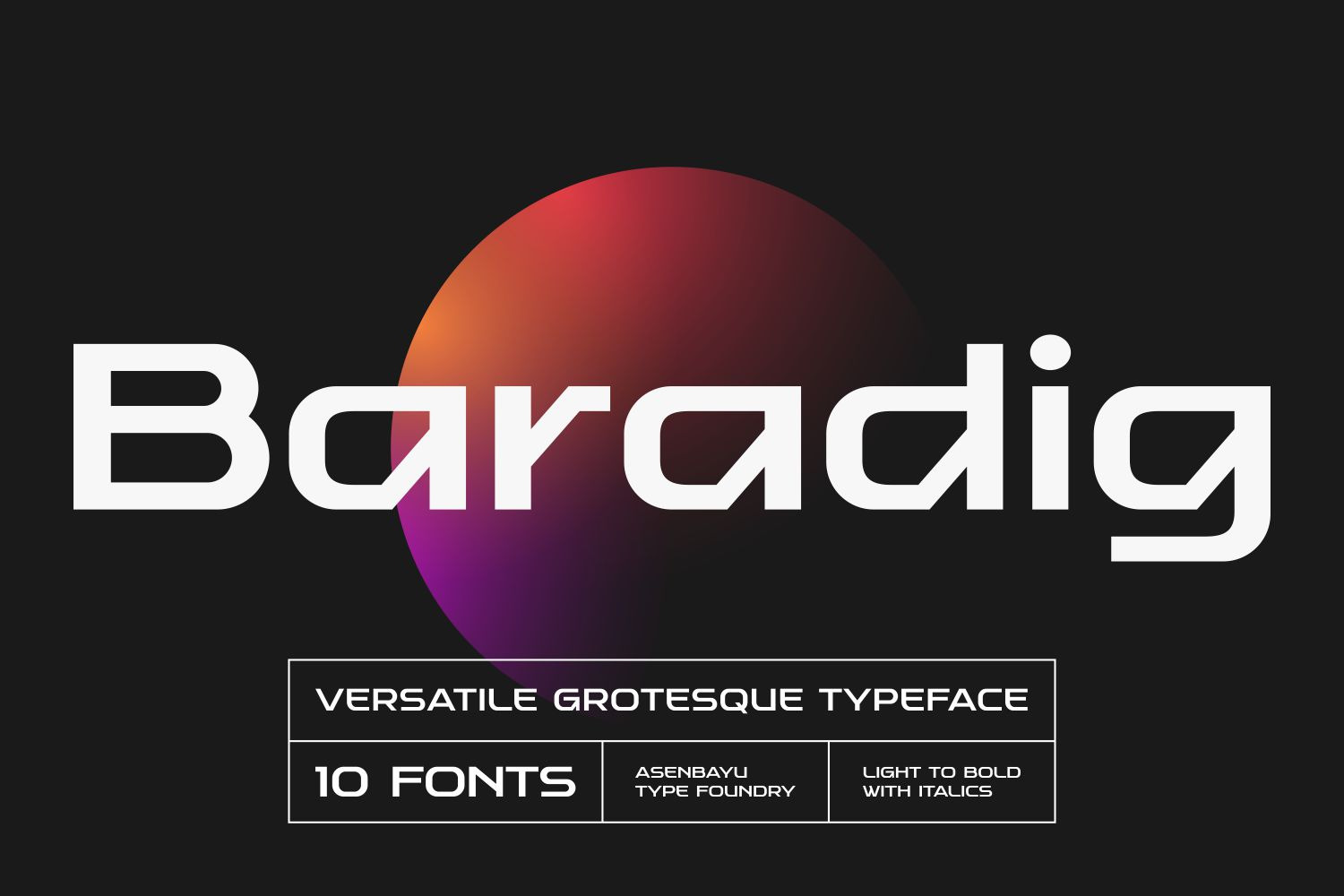
Baradig Fonts Family
Baradig is a versatile grotesque sans serif font family. Baradig provides a unique collection of glyphs with wide spacing and strong yet subtle geometric outlines. Baradig will give you an extraordinary modern visual experience. These fonts also have alternate and ligature features which are perfect for completing various projects such as logos, brands, products, labels, websites, posters, and many more.
Baradig fonts feature Open Type Format (OTF), kerning, ligature and alternate packed in 10 styles: Light, Light Italic, Regular, Italic, Medium, Medium Italic, SemiBold, Semibold Italic, Bold and Bold Italic. Baradig fonts include uppercase letters, lowercase letters, numeral, punctuation and multilingual support.